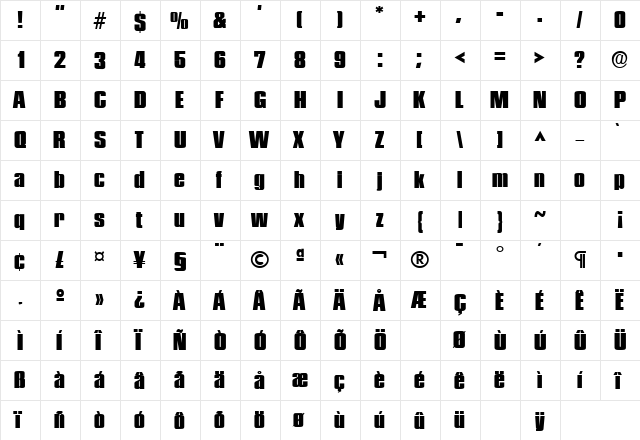
PlaketteFive Regular
Design Context for PlaketteFive Typeface
PlaketteFive is a composed and adaptable typeface that performs quietly and consistently across a wide range of design contexts.